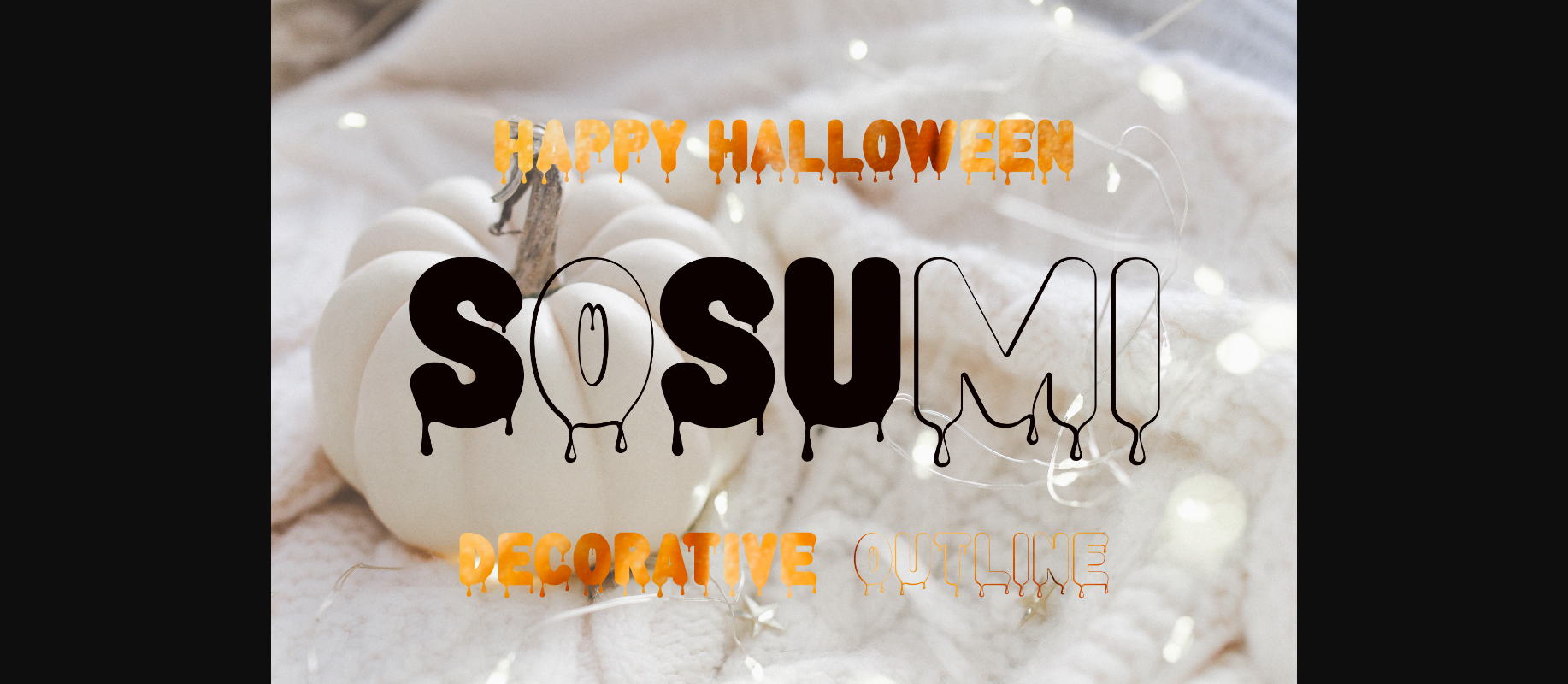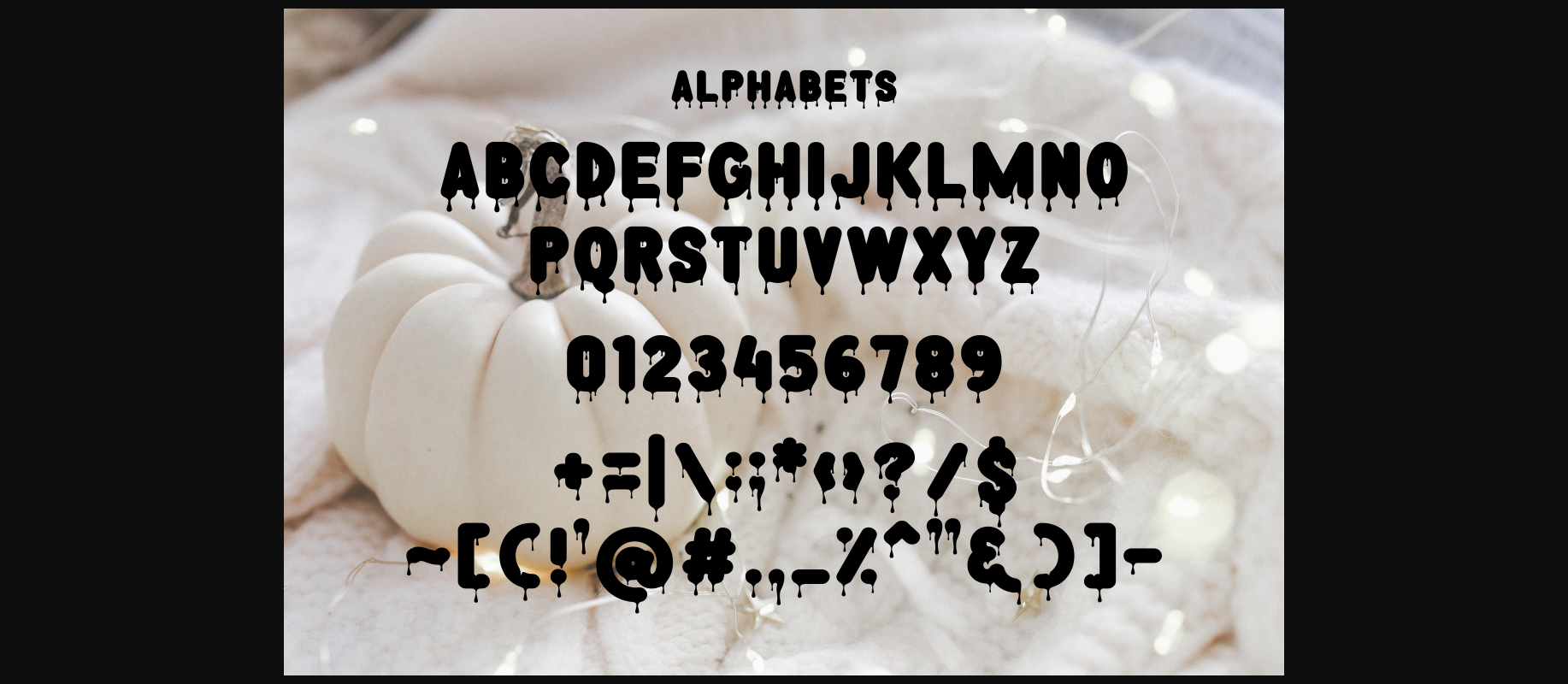
About Sosumi Font
Sosumi is a spine-chilling Halloween font that sends shivers down your spine. Each letter stands tall and bold, dripping with sinister blood, perfect for spooky invitations, haunted house signage, and eerie party decorations.